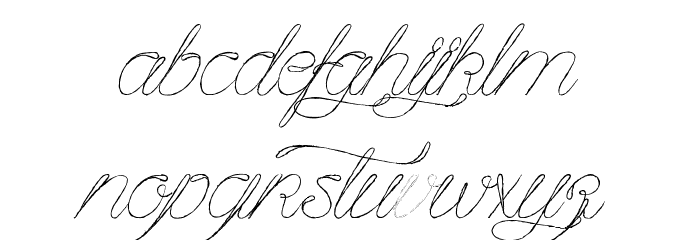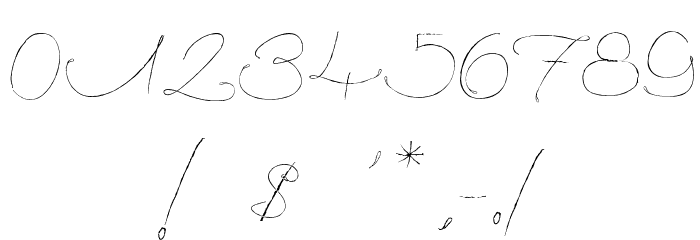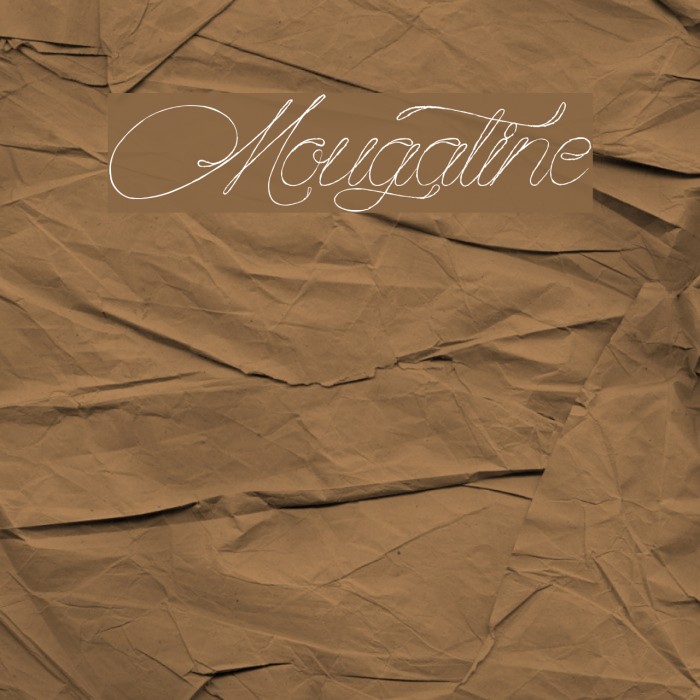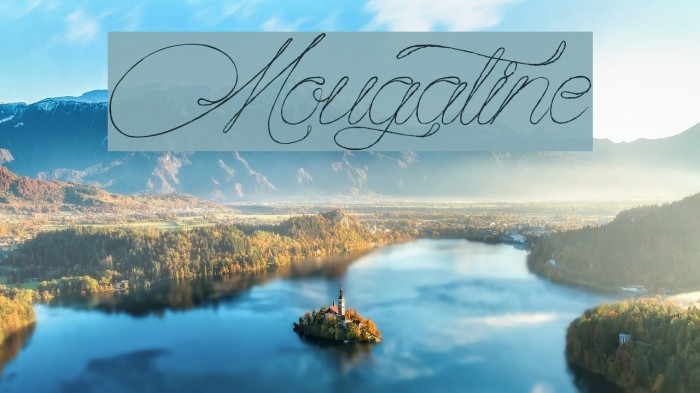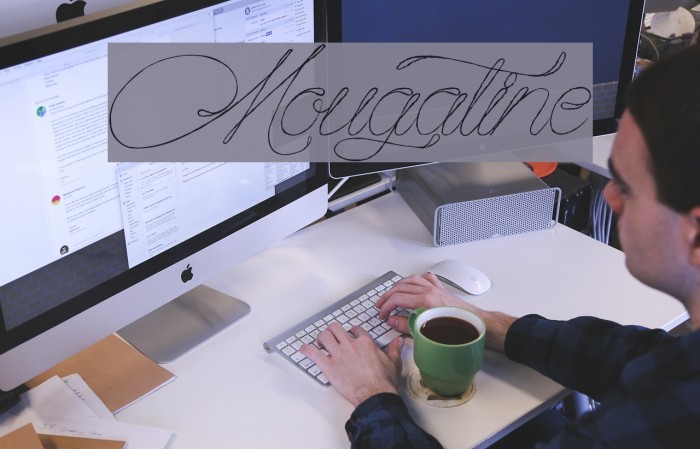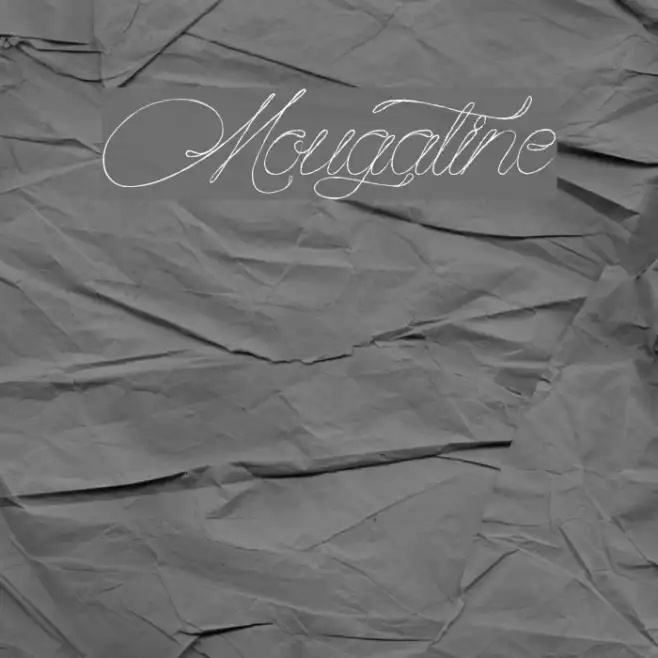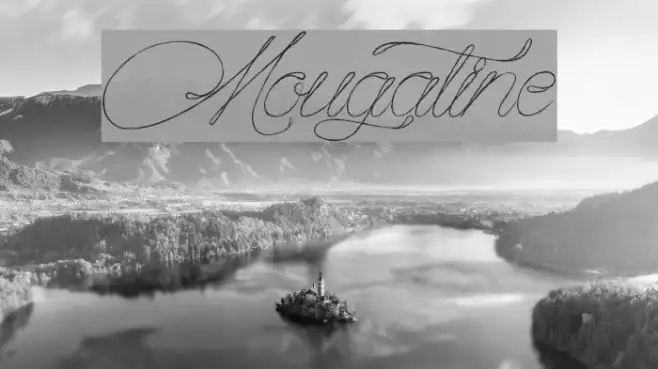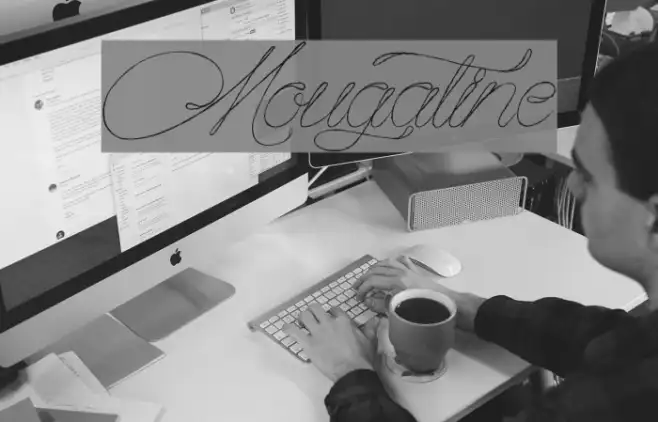
Mougatine Font
This font features an elegant and flowing script style, characterized by its intricate loops and swashes. The letters are interconnected, creating a seamless and continuous flow that mimics the fluidity of handwriting. The uppercase letters are particularly ornate, with elaborate flourishes that add a touch of sophistication. The lowercase letters maintain a consistent style, with gentle curves and a graceful appearance. The numerals and special characters are designed to match the overall aesthetic, ensuring a cohesive look across all text. This font exudes a sense of refinement and is ideal for projects that require a personal and artistic touch.
An elegant and flowing script font with intricate loops and swashes.
- Proposed Projects: Ideal for wedding invitations, greeting cards, personal branding, and artistic projects.
- Character Spacing: Tight
- Use Case: Logos, Invitations, Artistic projects